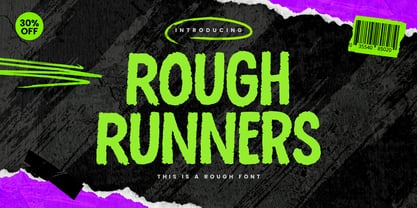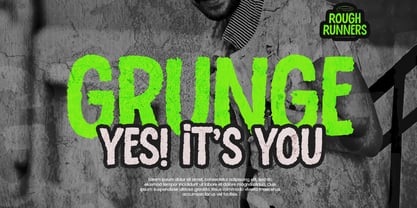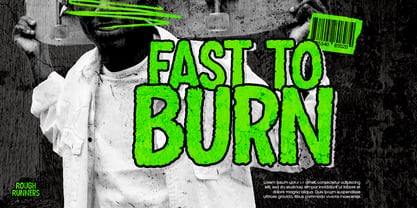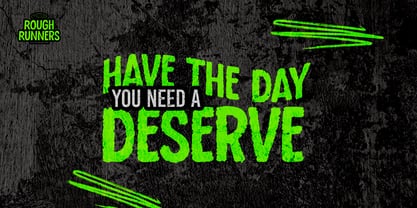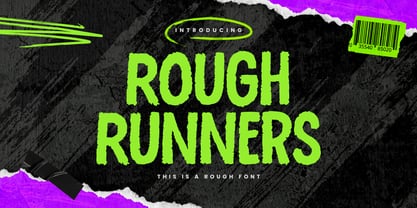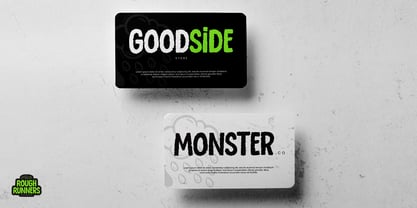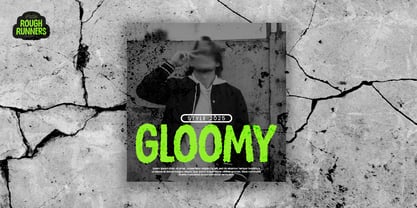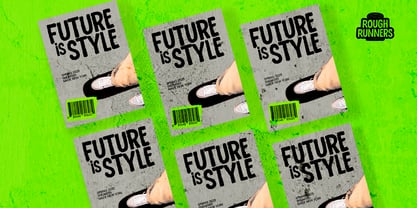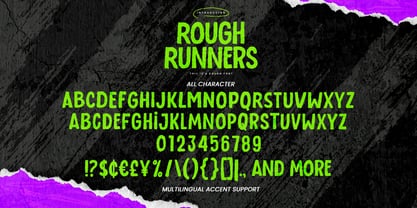
Rough Runners
por Gassstype
La familia tipográfica Rough Runners fue diseñada por Abdul Malik Wisnu y publicada por Gassstype. Rough Runners contiene 1 estilos. Más información sobre esta familia
Introducing our new product, Font Rough Runners. This is a Rough Font characterized by its Textured Natural Style and classy aesthetic, featuring a clear design and dramatic movement. Rough Runners is perfect for your next creative project, including logos, printed quotes, invitations, cards, product packaging, headers, letterhead, posters, and more. This font is ideal for watermarking photography and is also great for branding, advertisements, product designs, stationery, wedding designs, labels, and special events, adding a unique handwritten touch to anything you create.
Diseñadores: Abdul Malik Wisnu
Fundición: Gassstype